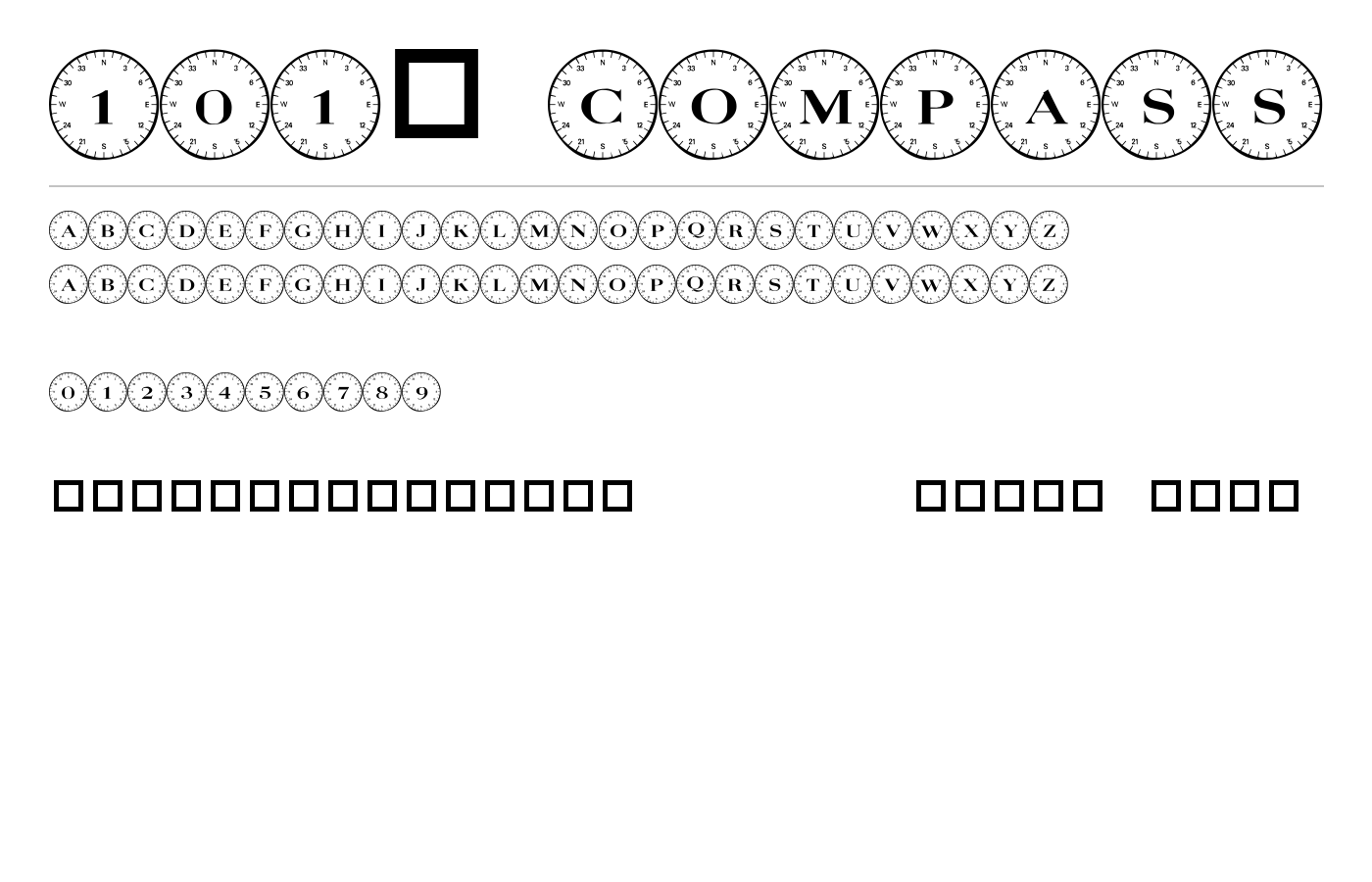
101! Compass Font is a unique serif typeface featuring classic Roman-style letters encased within finely detailed compass dial circles, blending traditional elegance with a navigational theme. Its bold yet refined serifs and high-contrast strokes give it a stately and adventurous personality, making it ideal for vintage-themed projects, travel branding, or decorative headlines that evoke exploration and precision. This distinctive font works beautifully where a sophisticated yet thematic design is needed to capture both heritage and direction.
101! Compass Font